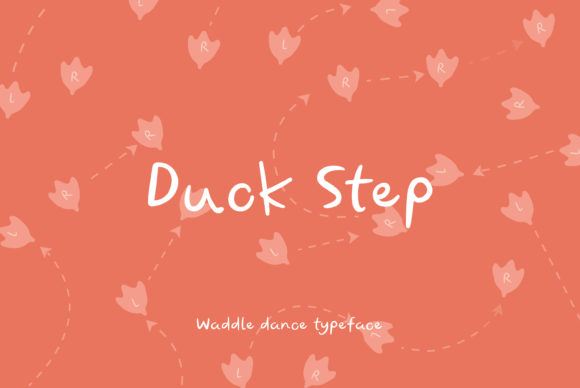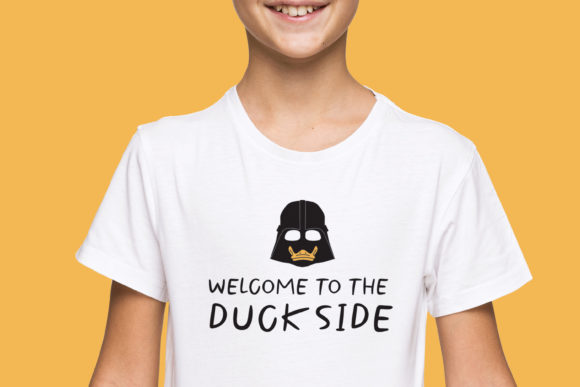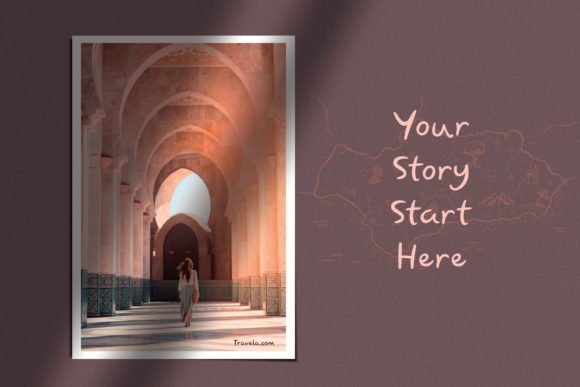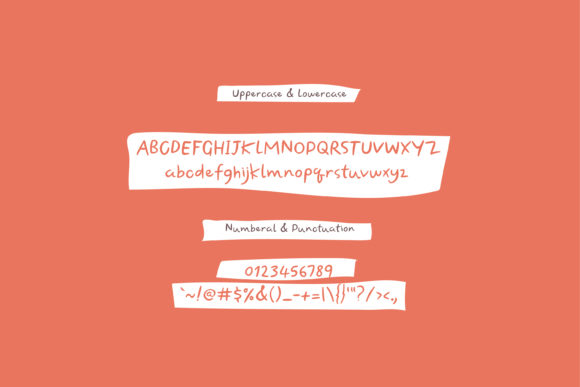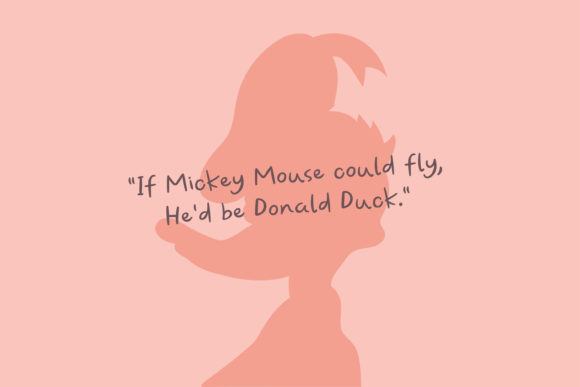
Duck Step Font
About Duck Step Font
Duck Step is a sweet and natural handwritten font. Fun and fresh, this cute font will make each of your children or school projects stand out!